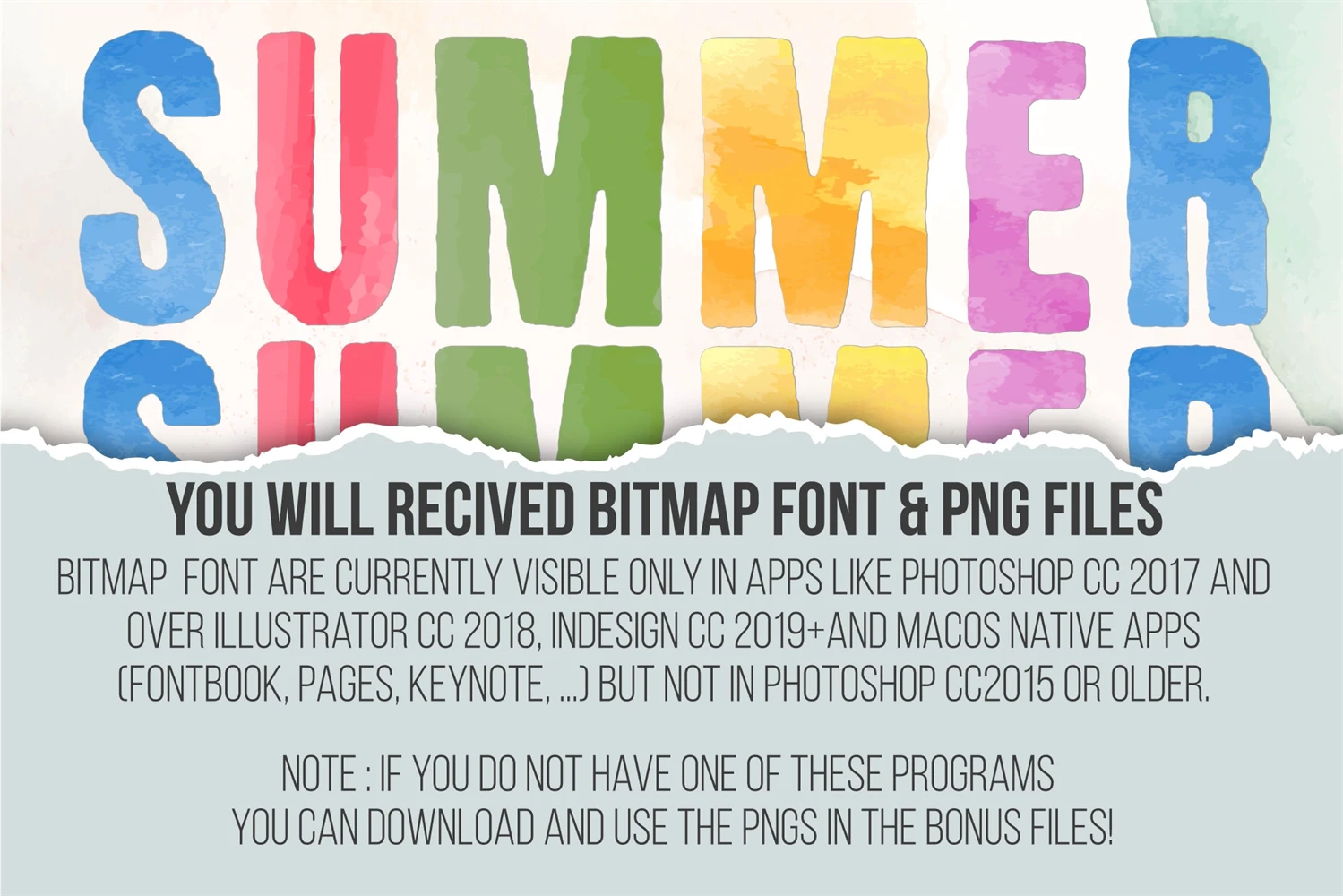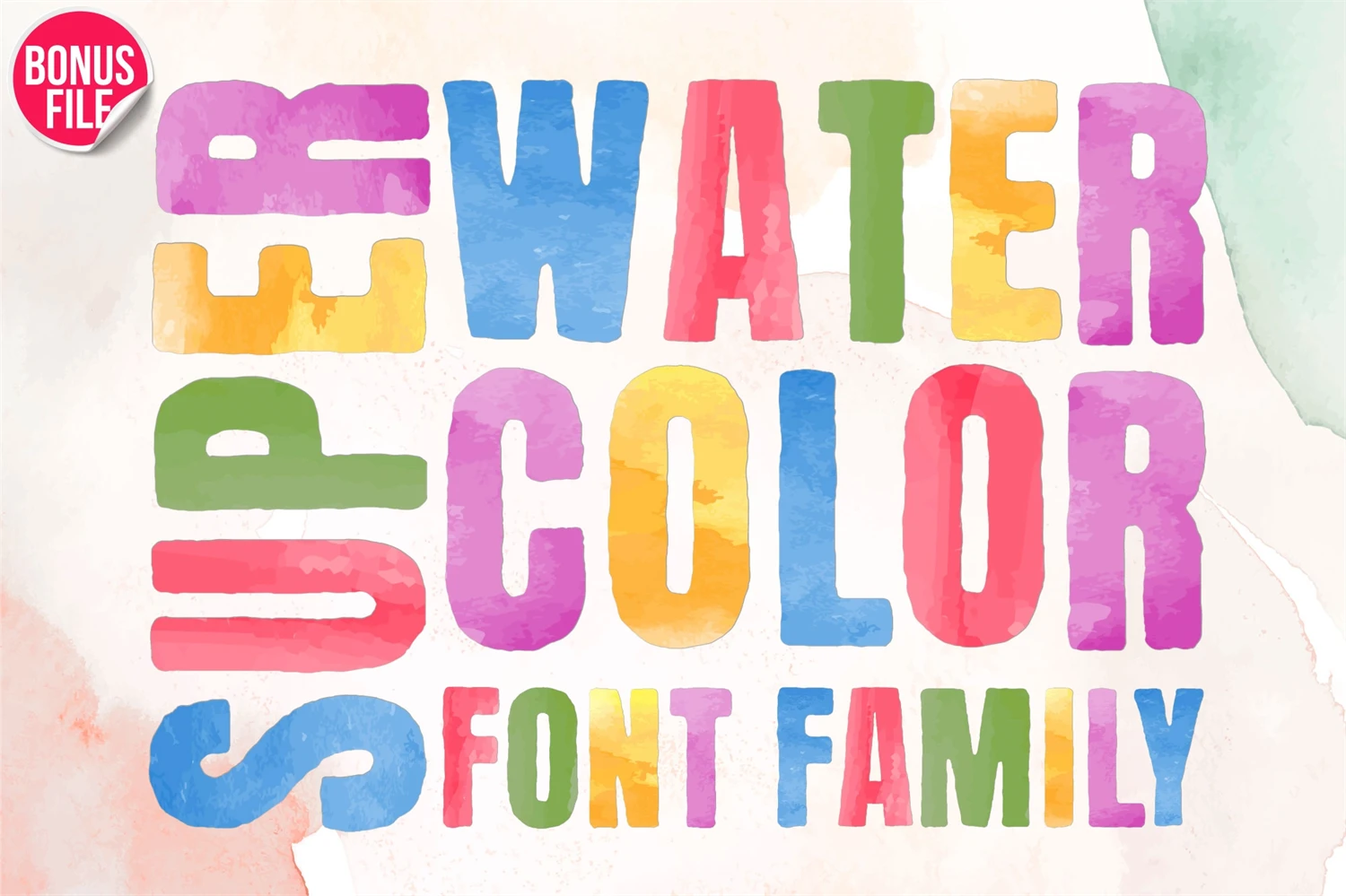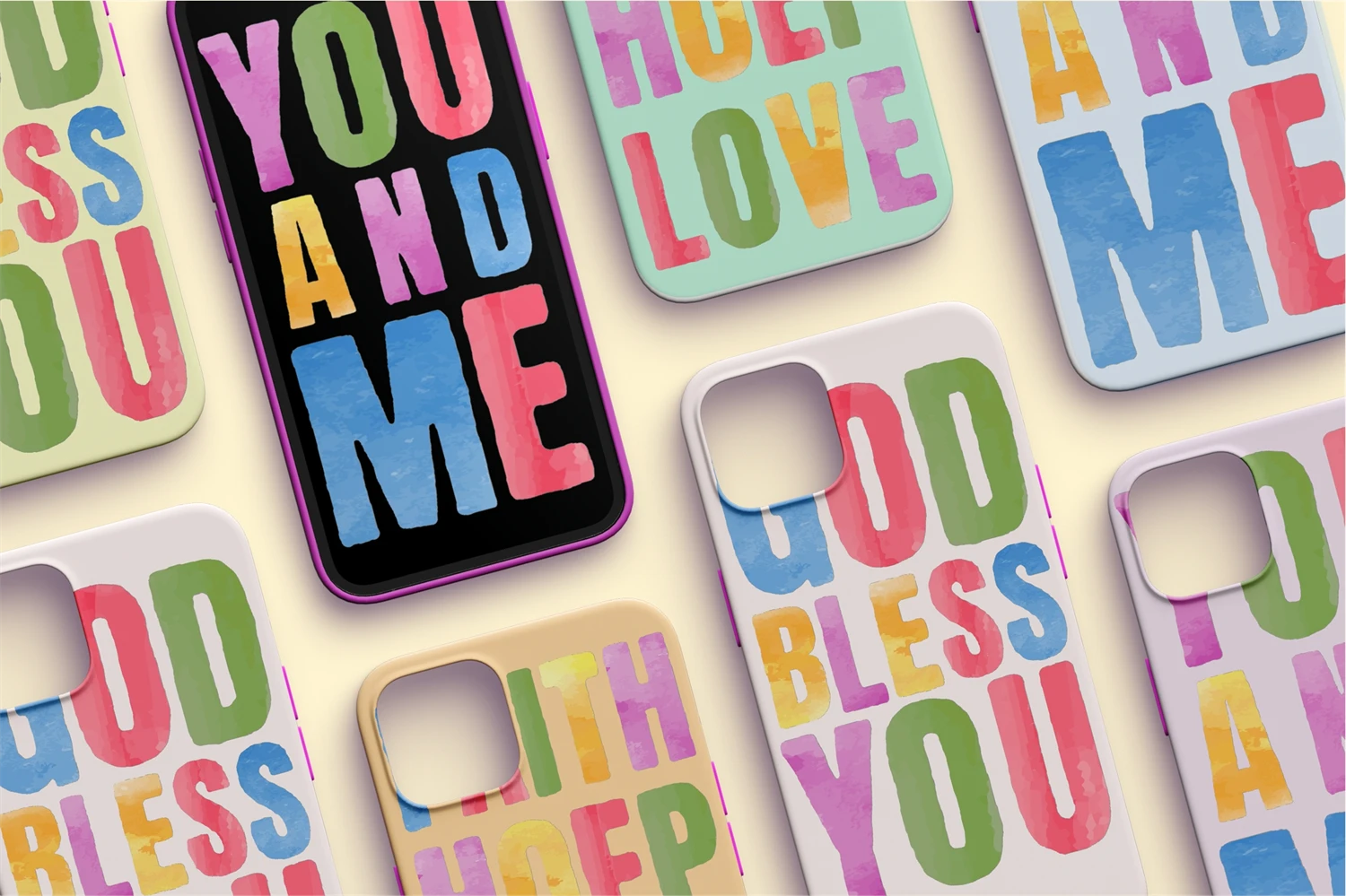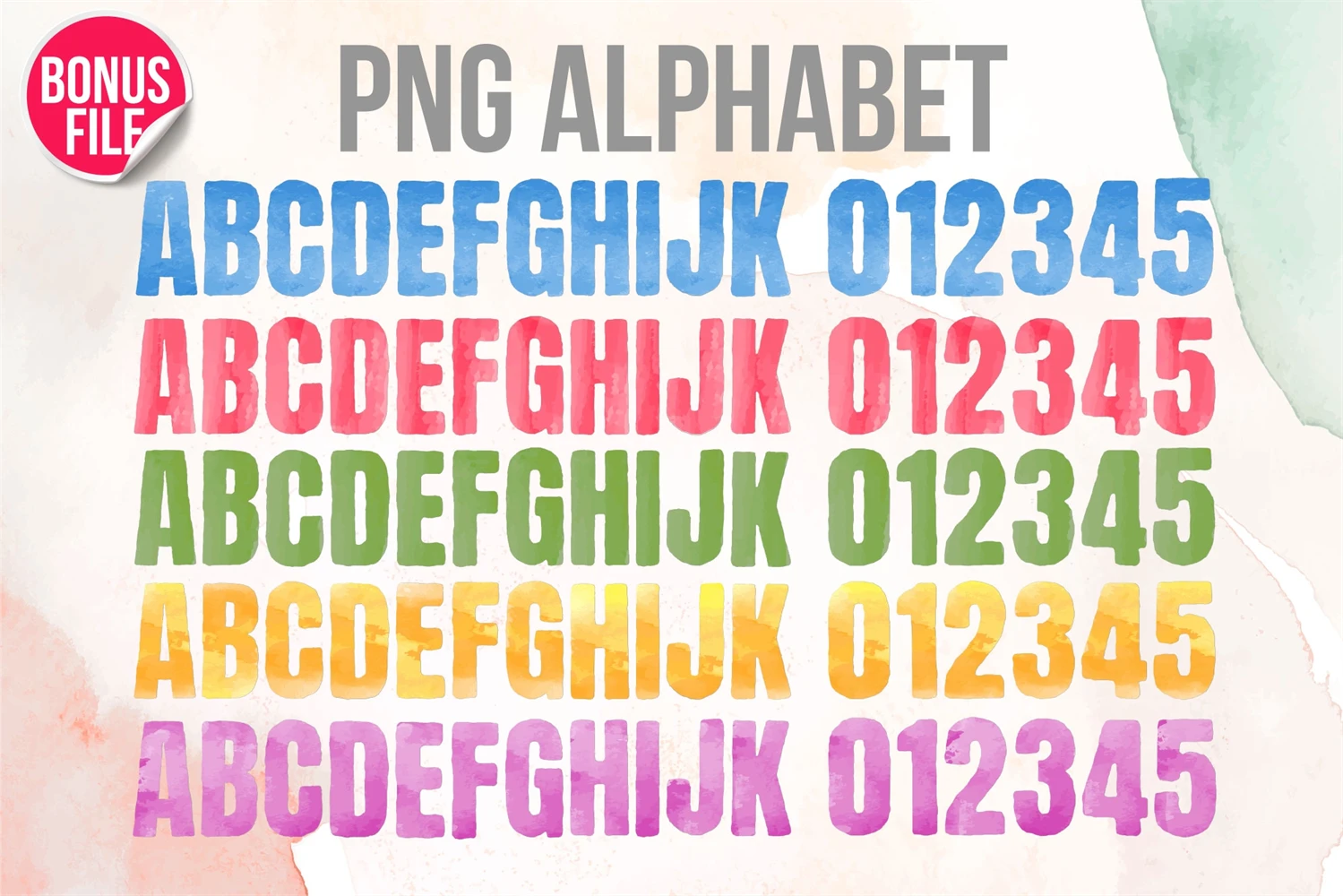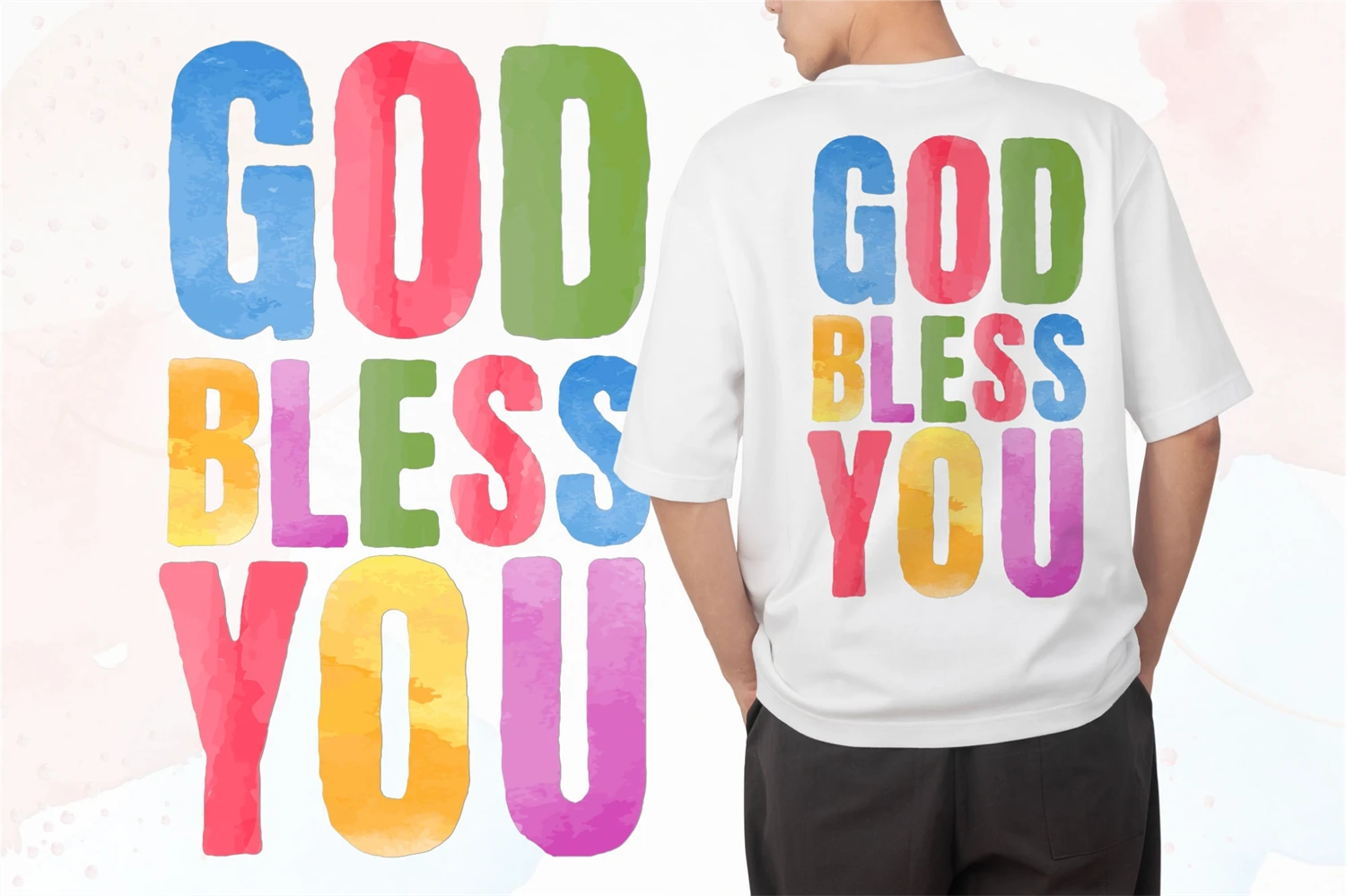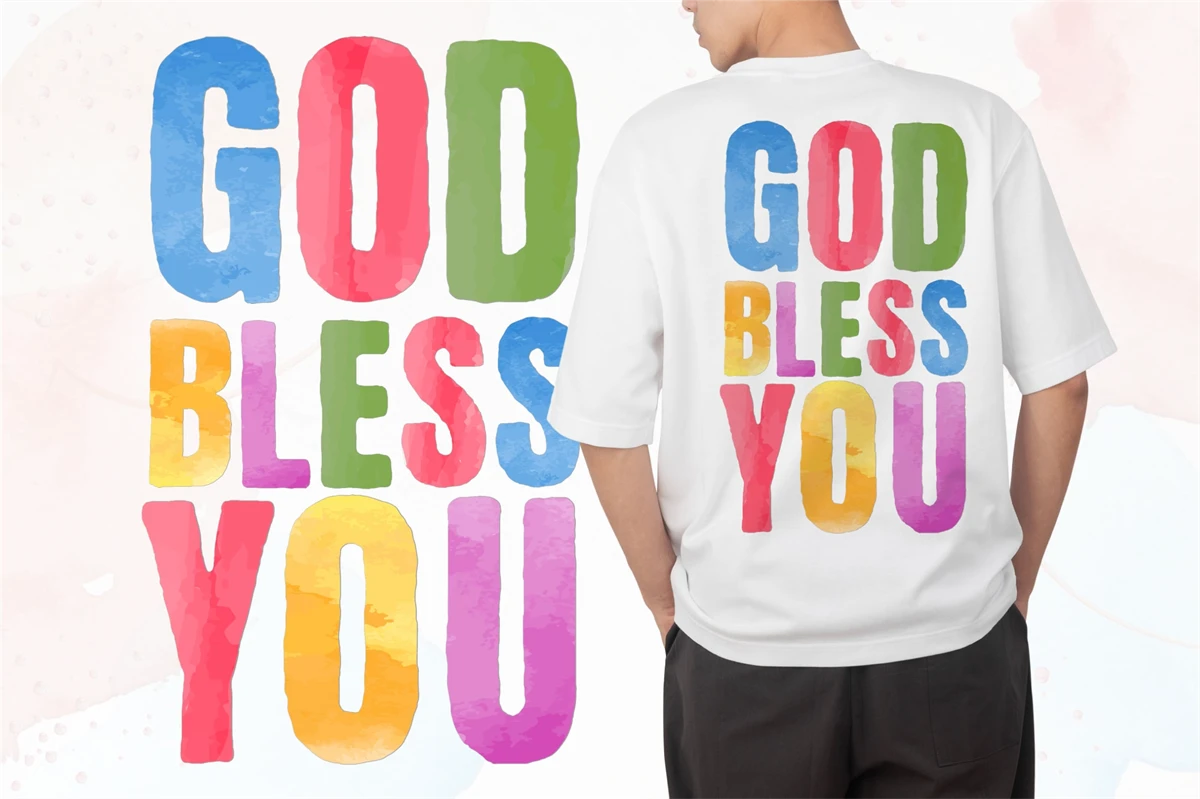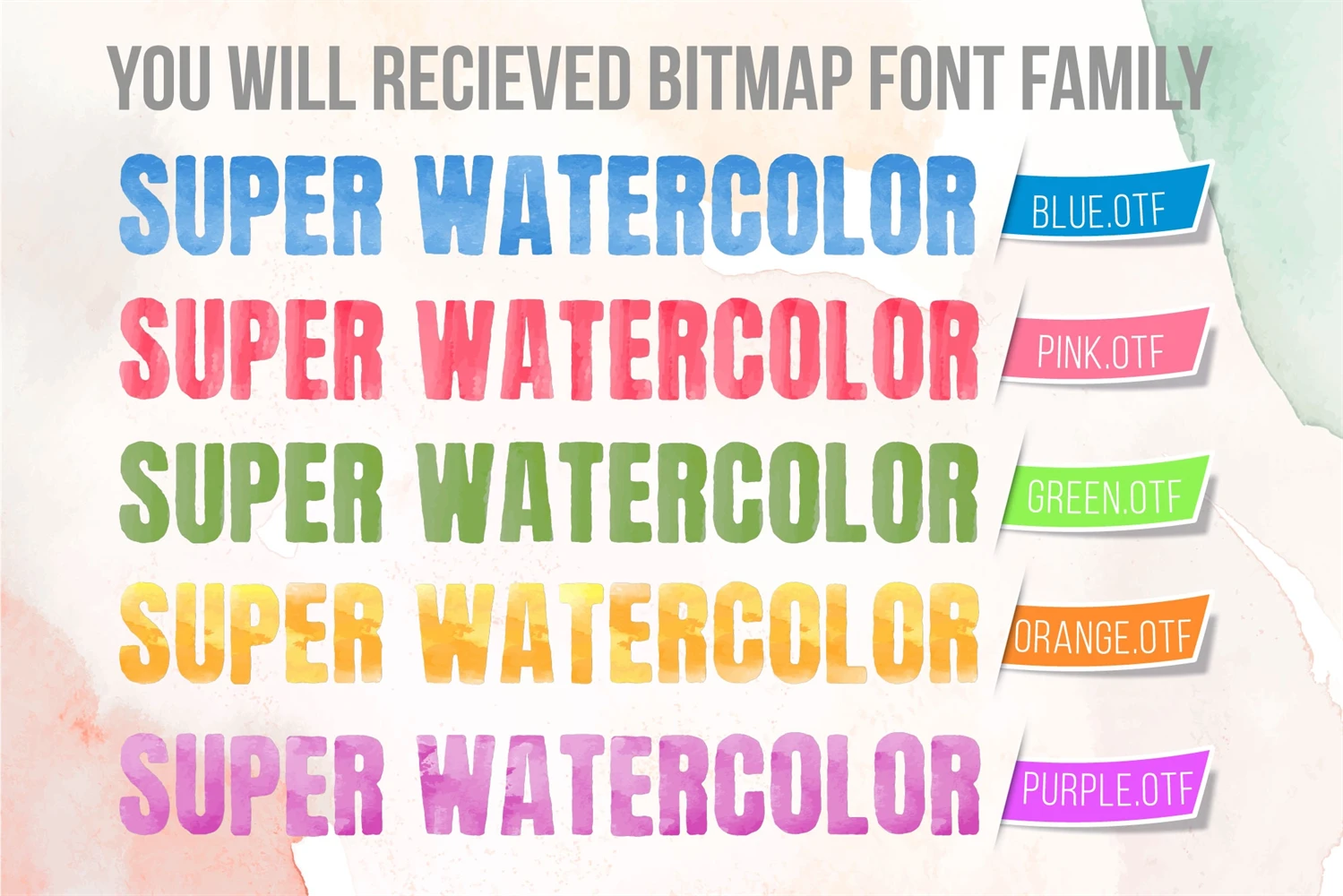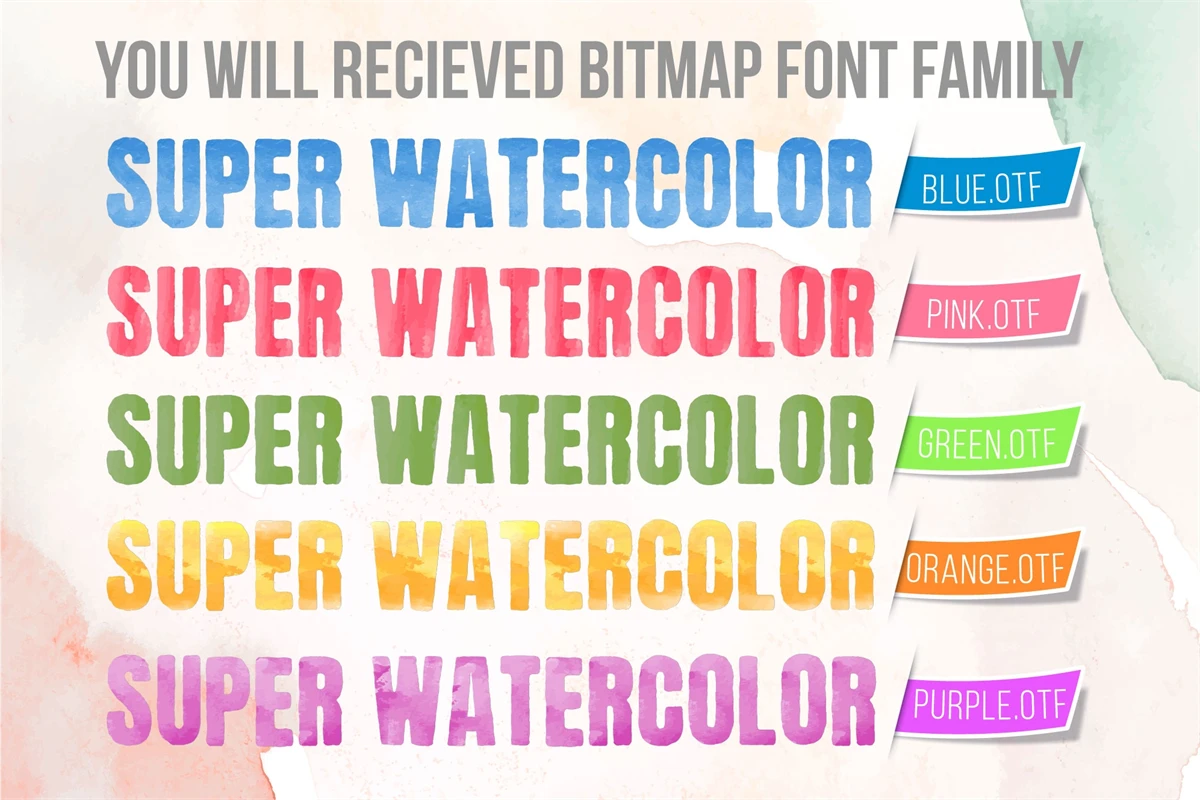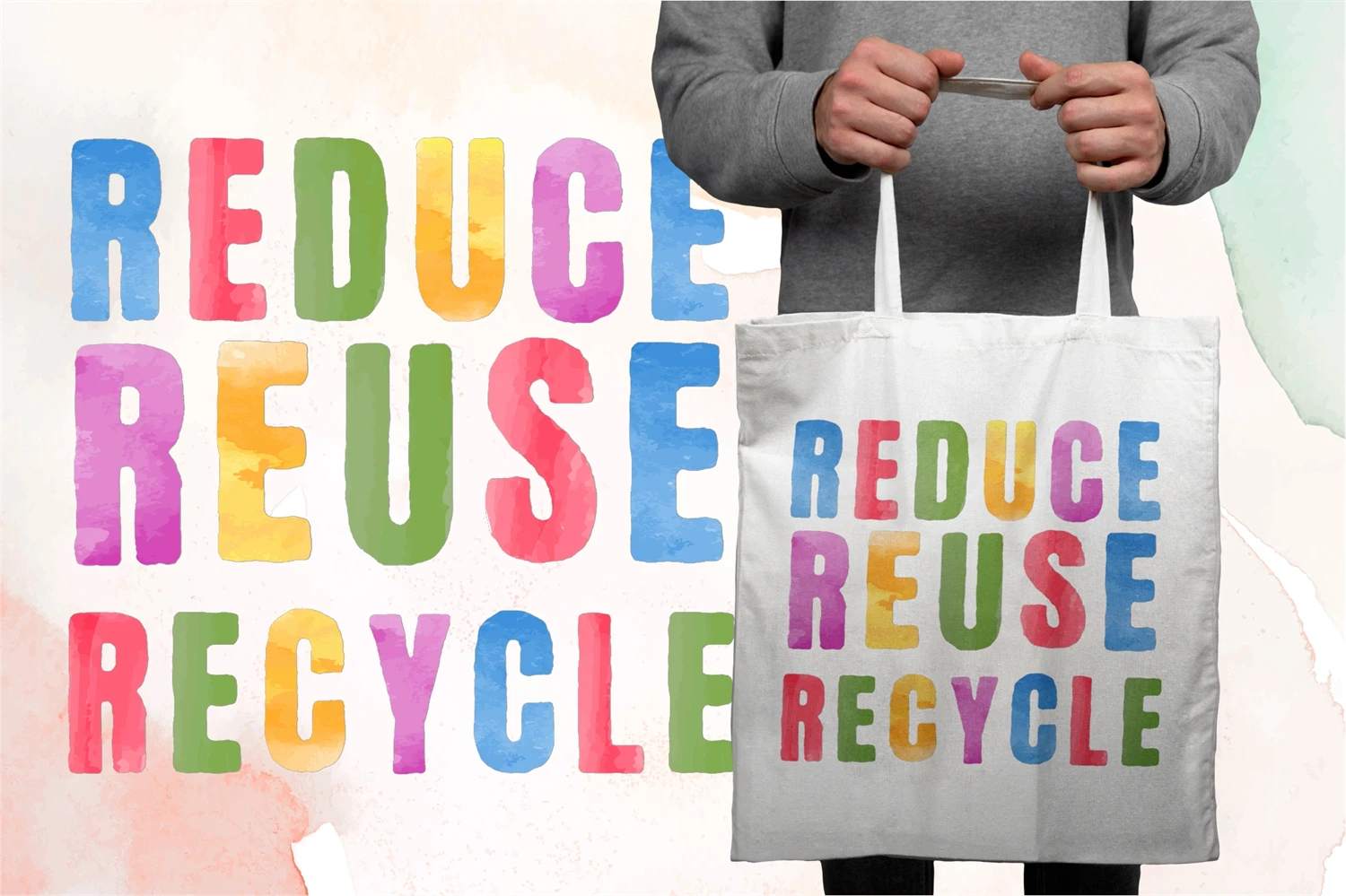
Introducing Super Watercolor Alphabet, a modern and colorful font perfect for any DIY project, postcard, or shirt design. This hand-painted alphabet set is available as PNG files for easy use and customization. Use these artistic letters to create personalized designs that stand out with a unique and creative touch. The digital downloads allow for unlimited use, so let your creativity run wild!